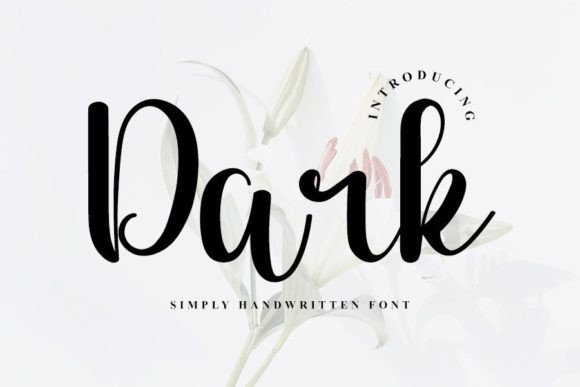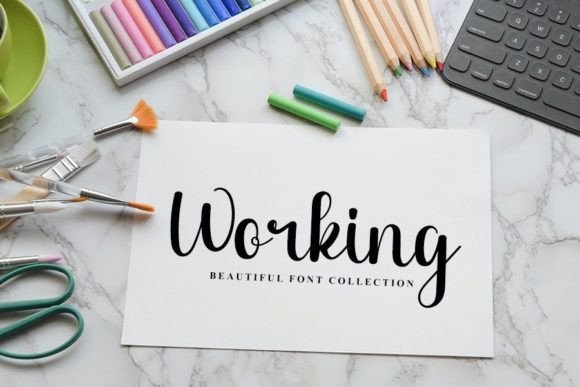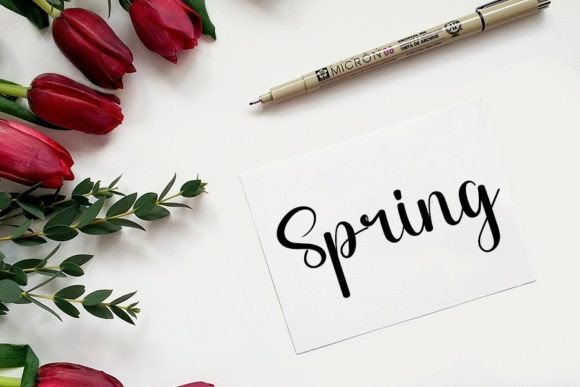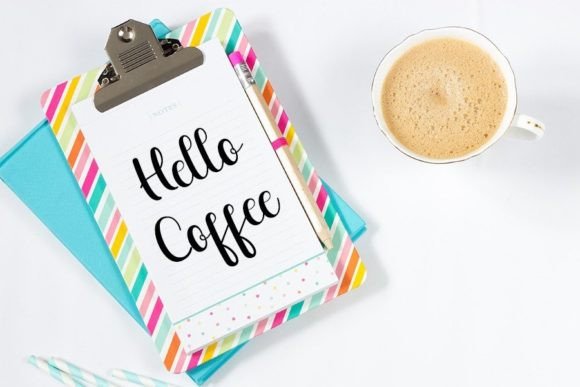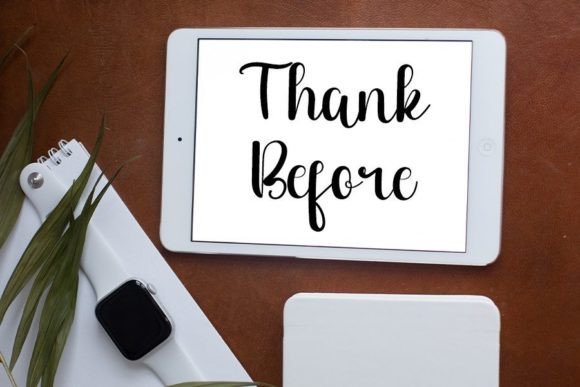
Dark Font
About Dark Font
Introducing Dark, a neat and beautiful handwritten font characterized by its elegant touch, making it an ideal choice for your favorite projects. Immerse yourself in the distinct and timeless style of Dark, and let it become the key element in creating spectacular designs that capture attention with their unique beauty.
Dark’s neat and beautiful handwriting brings an elegant touch to your projects. The clean lines and graceful appearance make it well-suited for a wide range of design applications, allowing you to express your creativity with finesse.
The incredibly distinct and timeless style of Dark ensures that your designs possess enduring appeal. Whether used for logos, invitations, branding, or any creative project, Dark imparts a sense of sophistication that transcends fleeting trends.
Dark’s versatility makes it an excellent choice for various design endeavors. Whether you’re working on digital graphics or printed materials, Dark adapts seamlessly, offering a consistent and elegant aesthetic across different platforms.
Imagine using Dark for a logo or branding where its distinct and neat handwriting creates a memorable visual identity. In invitations or posters, Dark adds a touch of elegance, making your messages more refined and captivating.
For any project where a neat and beautiful handwritten font is desired, Dark becomes a go-to choice. Its timeless style and elegant design make it a versatile design tool that enhances the visual appeal of your creations.
In conclusion, Dark is not just a font; it’s a design element that invites you to infuse your projects with a neat and beautiful touch. Whether you’re working on branding, invitations, or other creative endeavors, Dark is ready to help you create spectacular designs that captivate and leave a lasting impression.